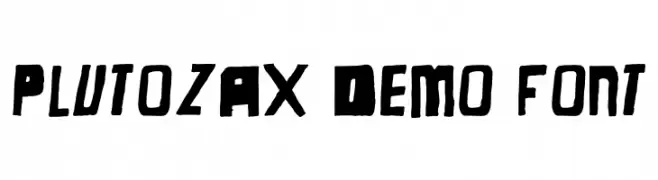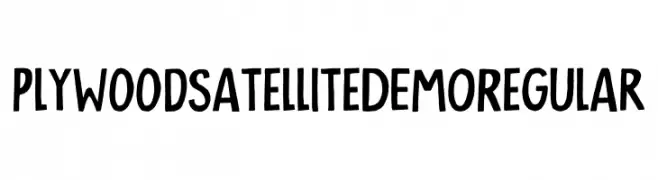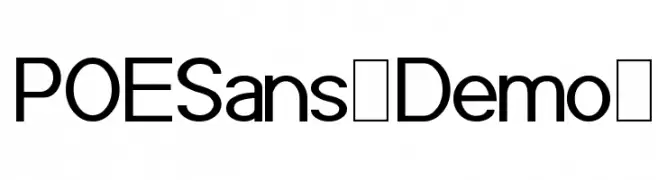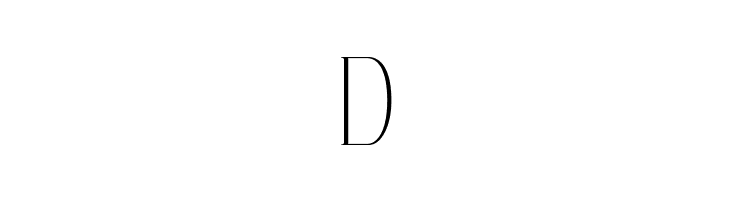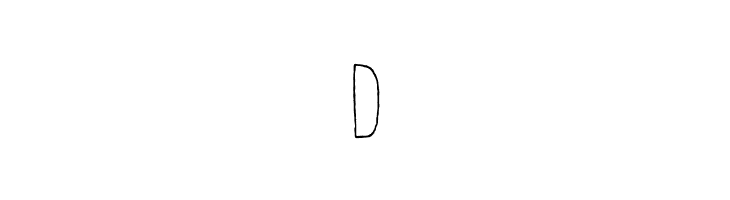
A thin, geometric font with a modern and minimalist design.
A playful, hand-drawn font with bold strokes and a quirky style.
A playful, rounded font with bold strokes and a friendly, approachable style.
A modern, geometric sans-serif font with uniform strokes and clear characters.
An elegant, decorative font with whimsical swirls and curls.
A bold, high-contrast serif font with distinctive decorative elements.
A modern, high-contrast font with elegant, slender characters.
Hand-drawn, whimsical sans-serif with tall, narrow letters.